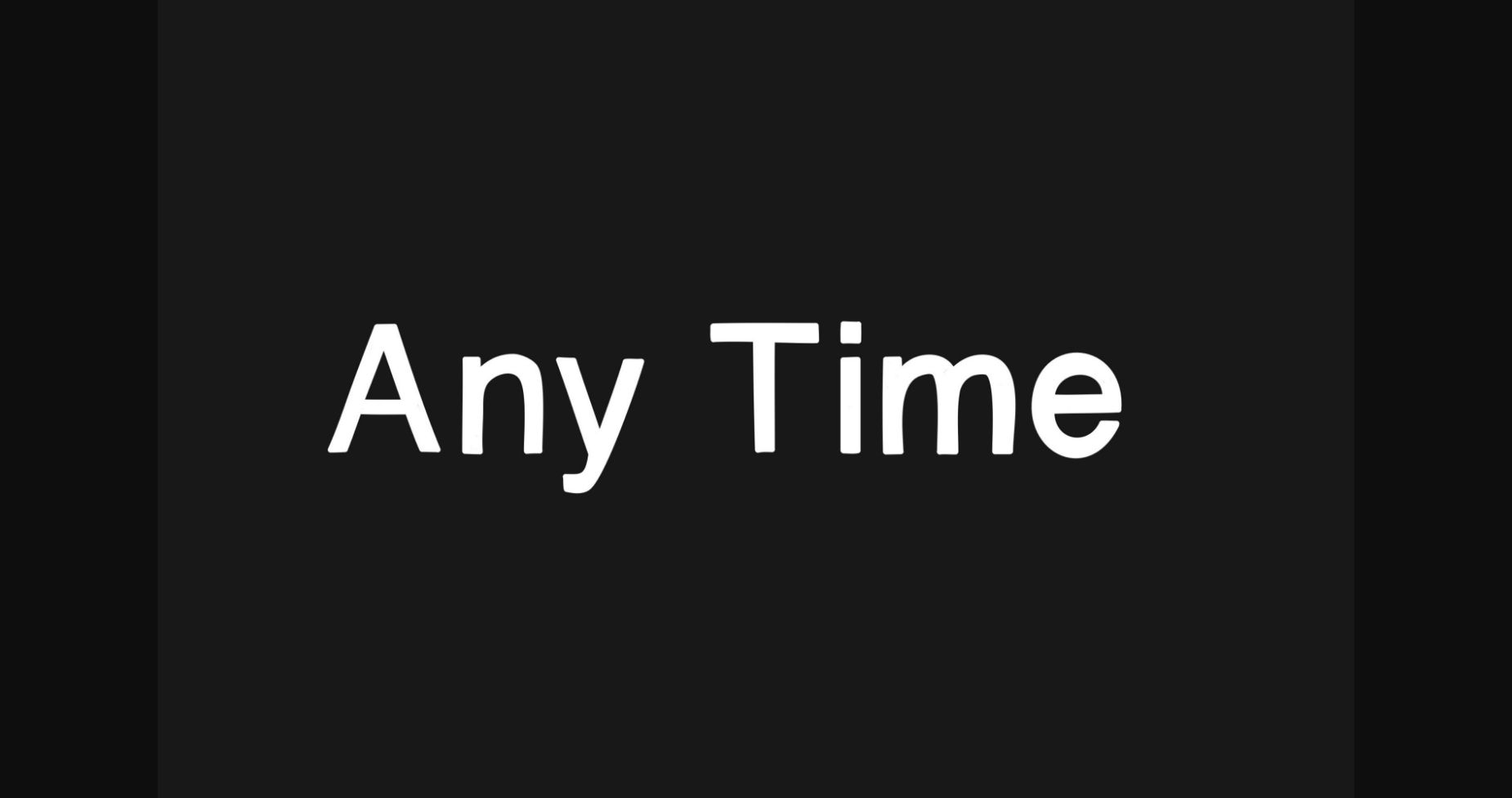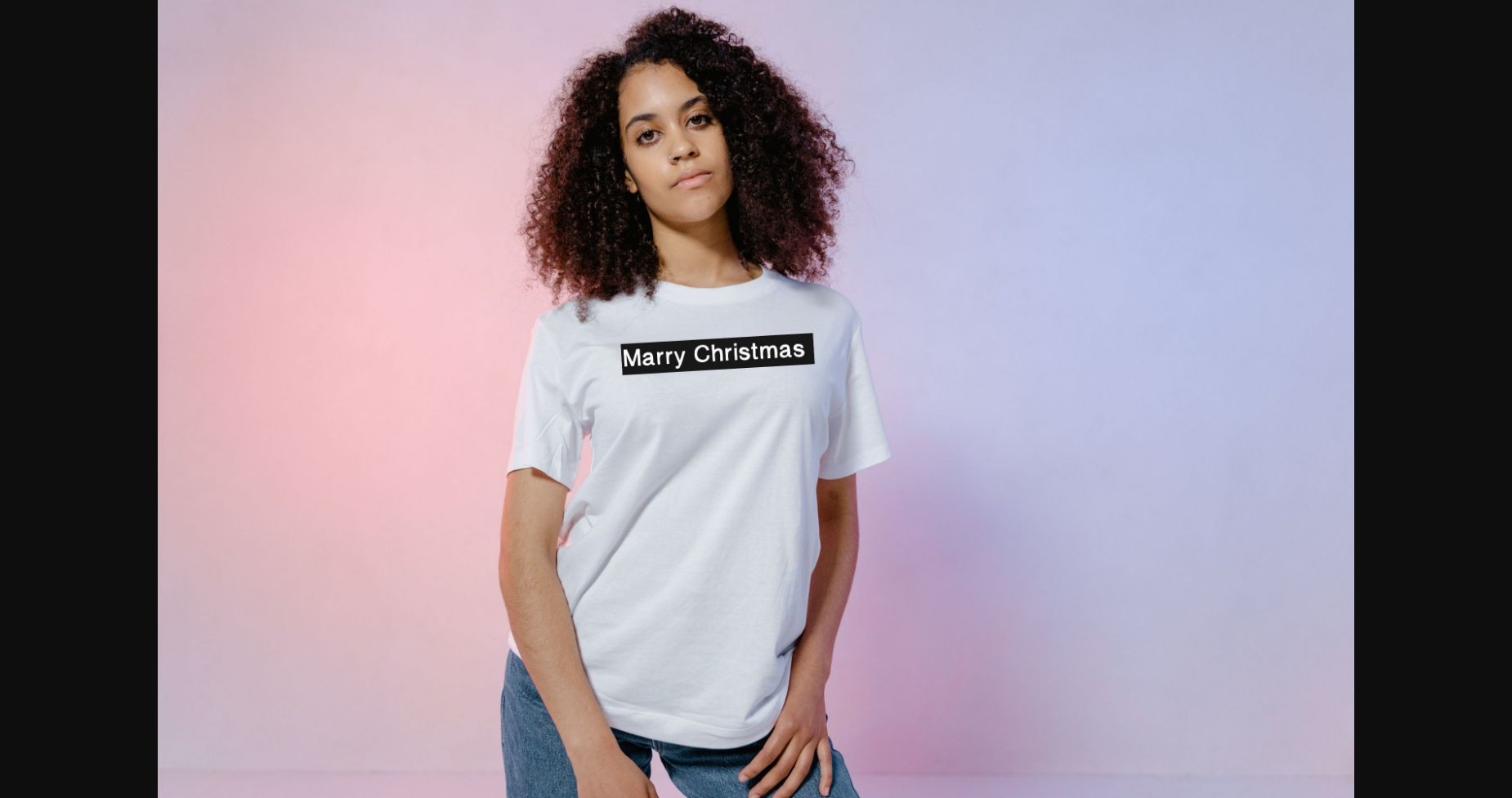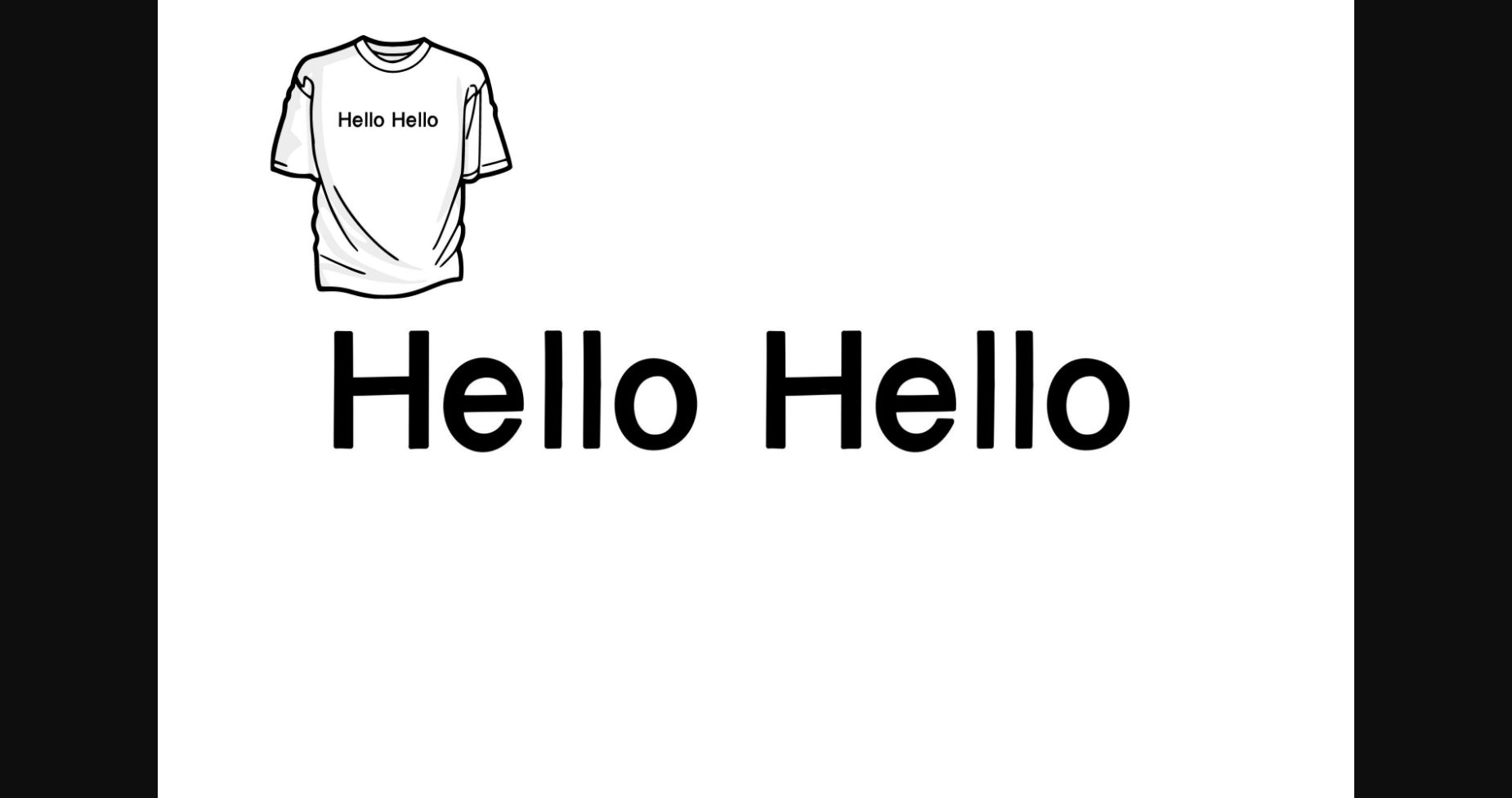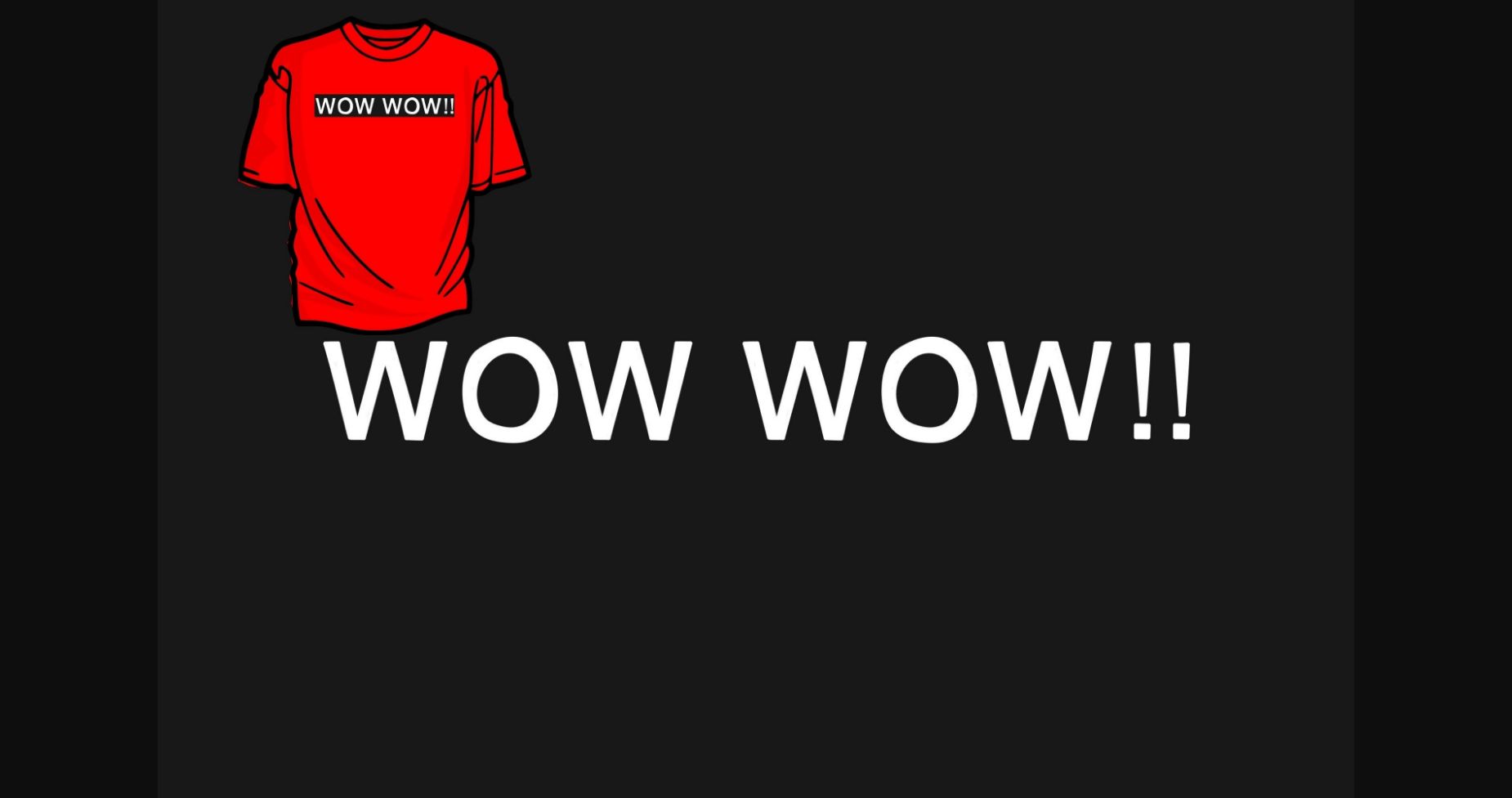
About Any Time Font
Any Time is a clean and simple lettered sans serif font. Whatever the topic, this font will be an adaptable asset to your font library, as it has the potential to enhance any creation.